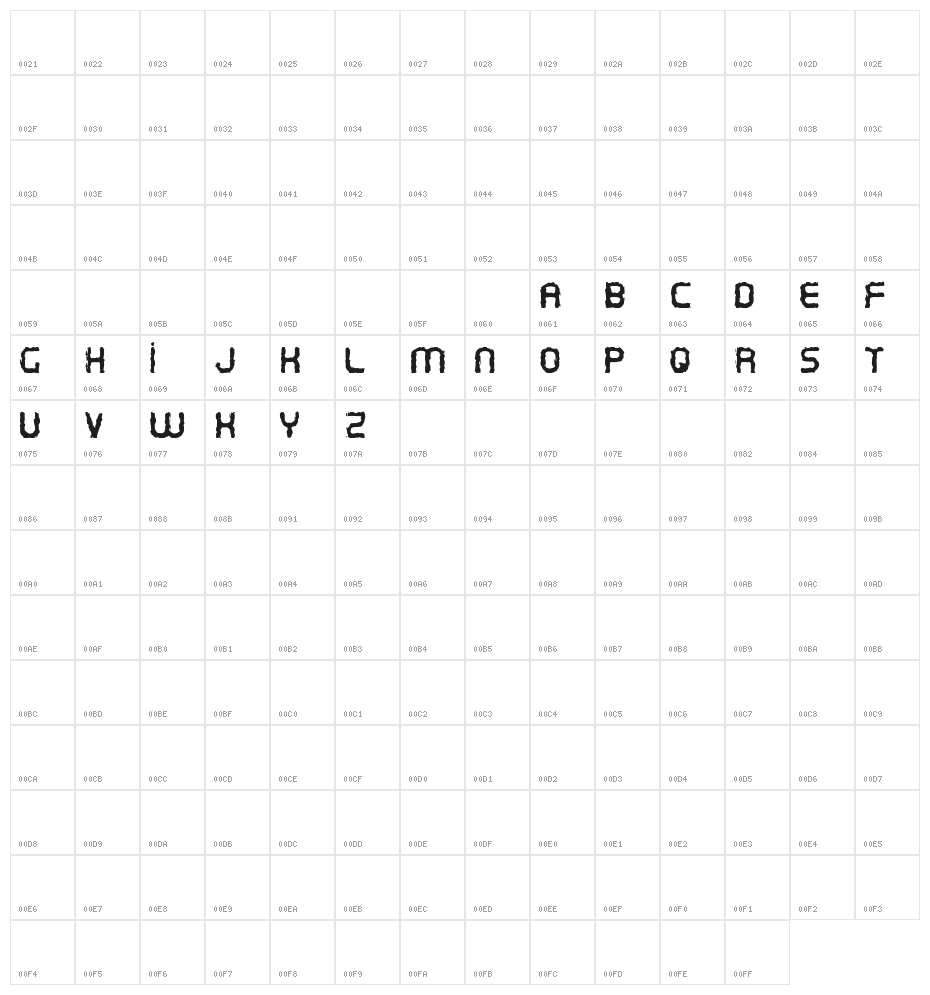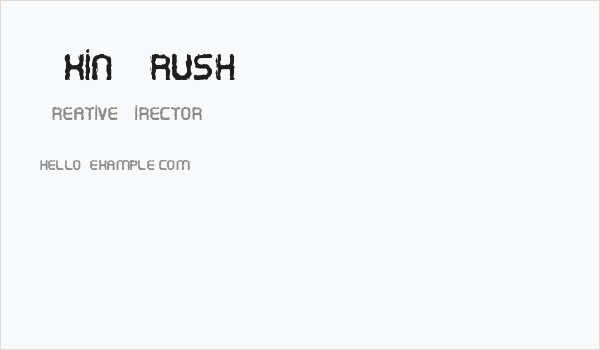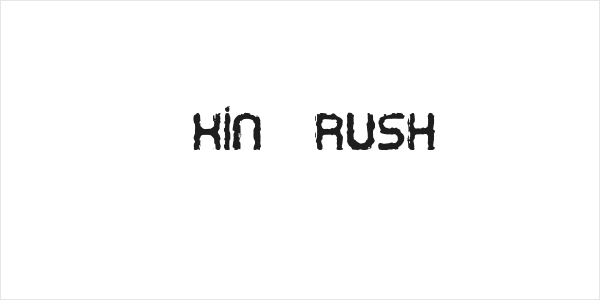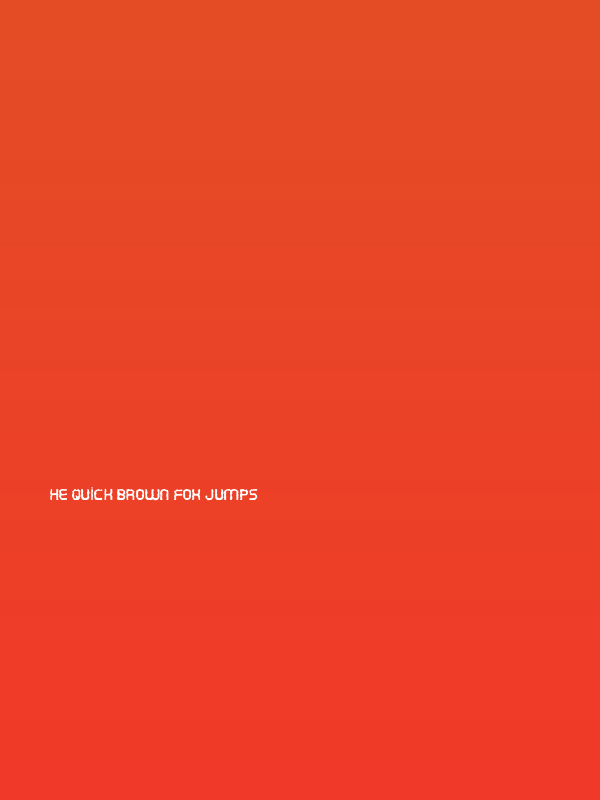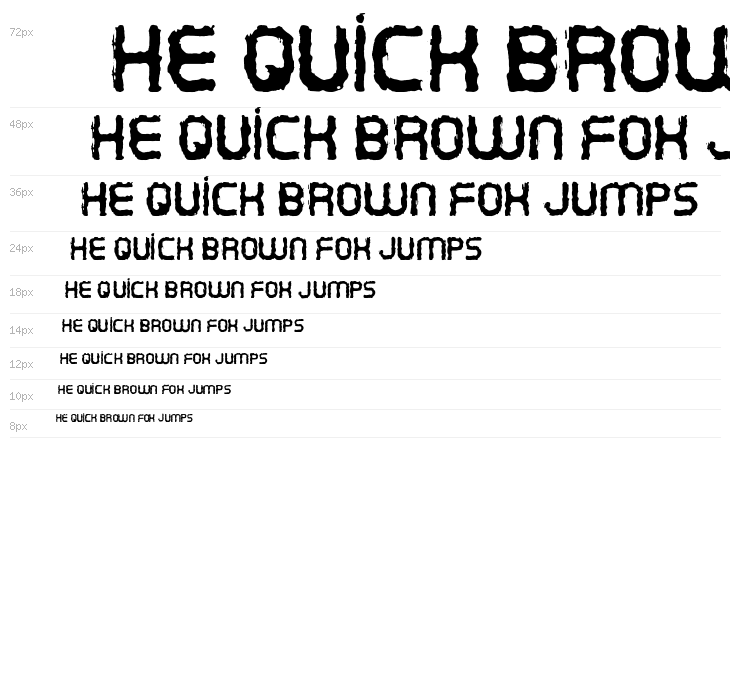
Oxin Brush Font
Oxin Brush Description
This font features a bold, brush-like appearance with a textured, organic feel. The characters are slightly irregular, giving them a hand-drawn quality that adds a sense of dynamism and energy. The strokes are thick and uneven, creating a rugged and artistic look. This style is reminiscent of graffiti or street art, making it ideal for projects that require a bold and expressive touch. The uppercase letters are consistent in height, while the lowercase letters maintain a similar style, ensuring readability despite the artistic flair. The numbers and special characters follow the same design principles, providing a cohesive look across all elements.